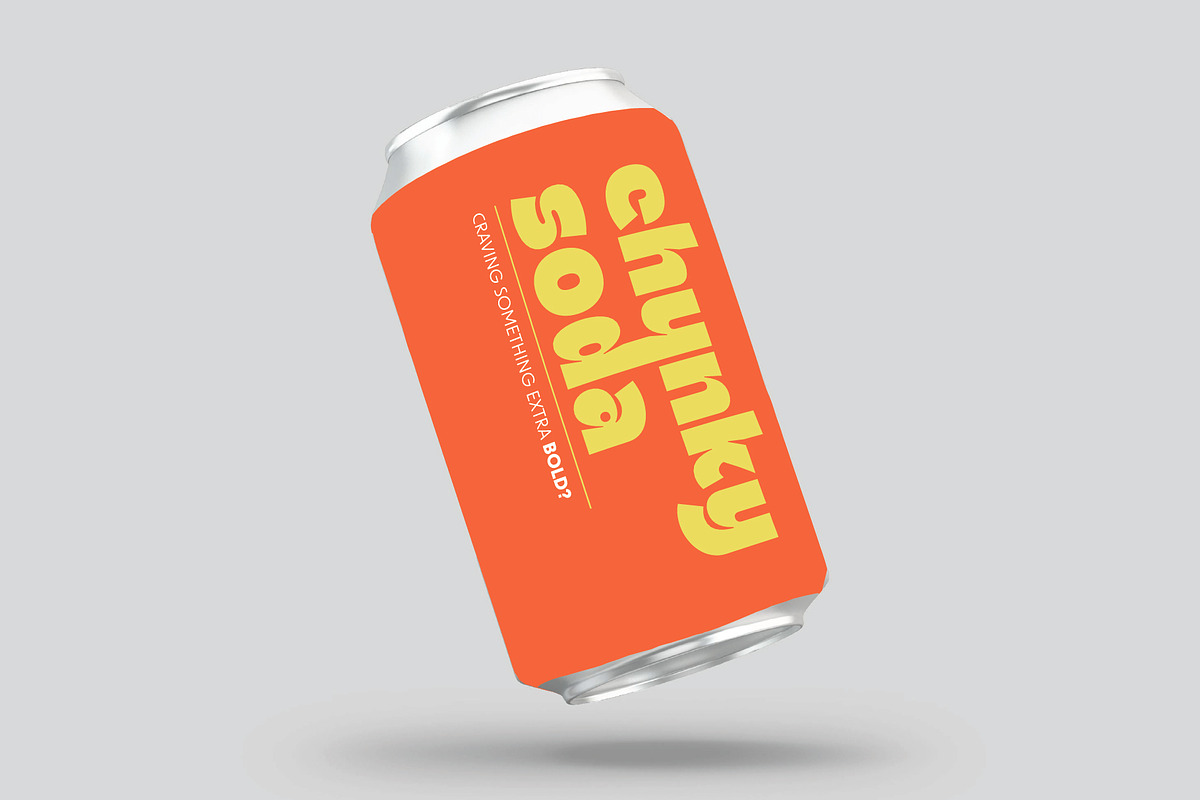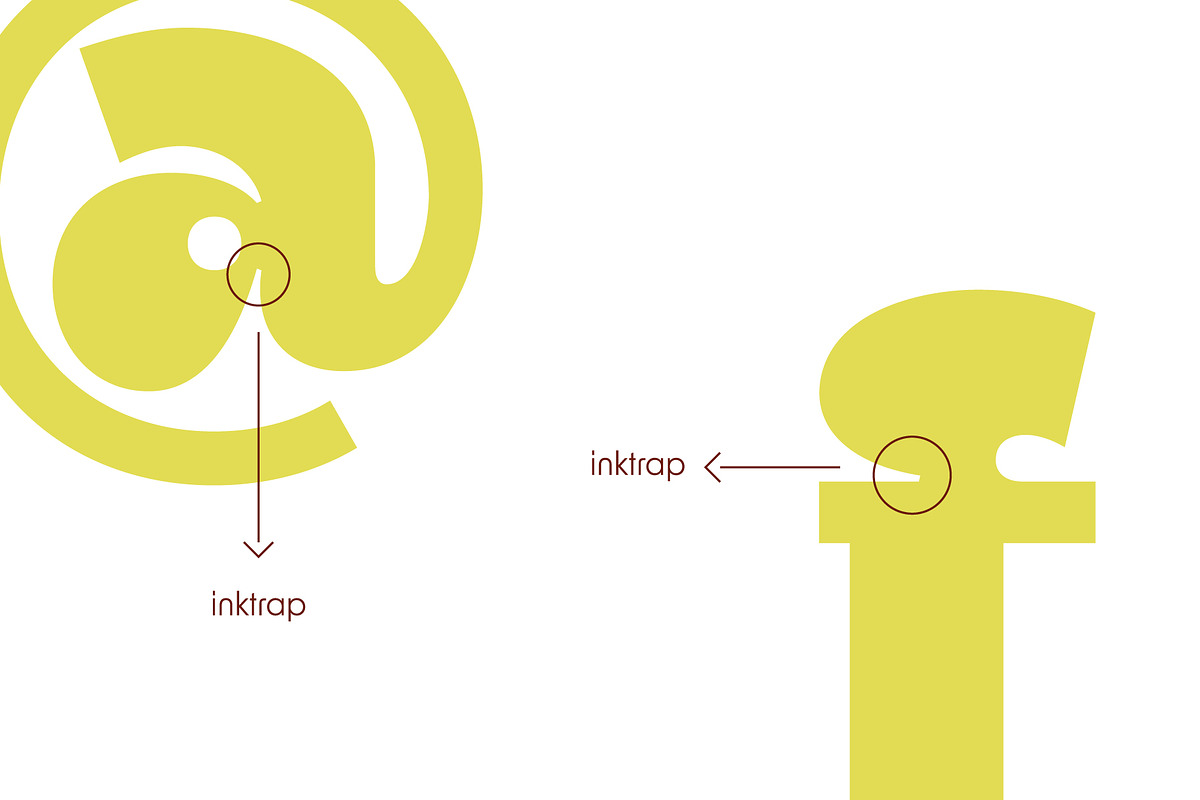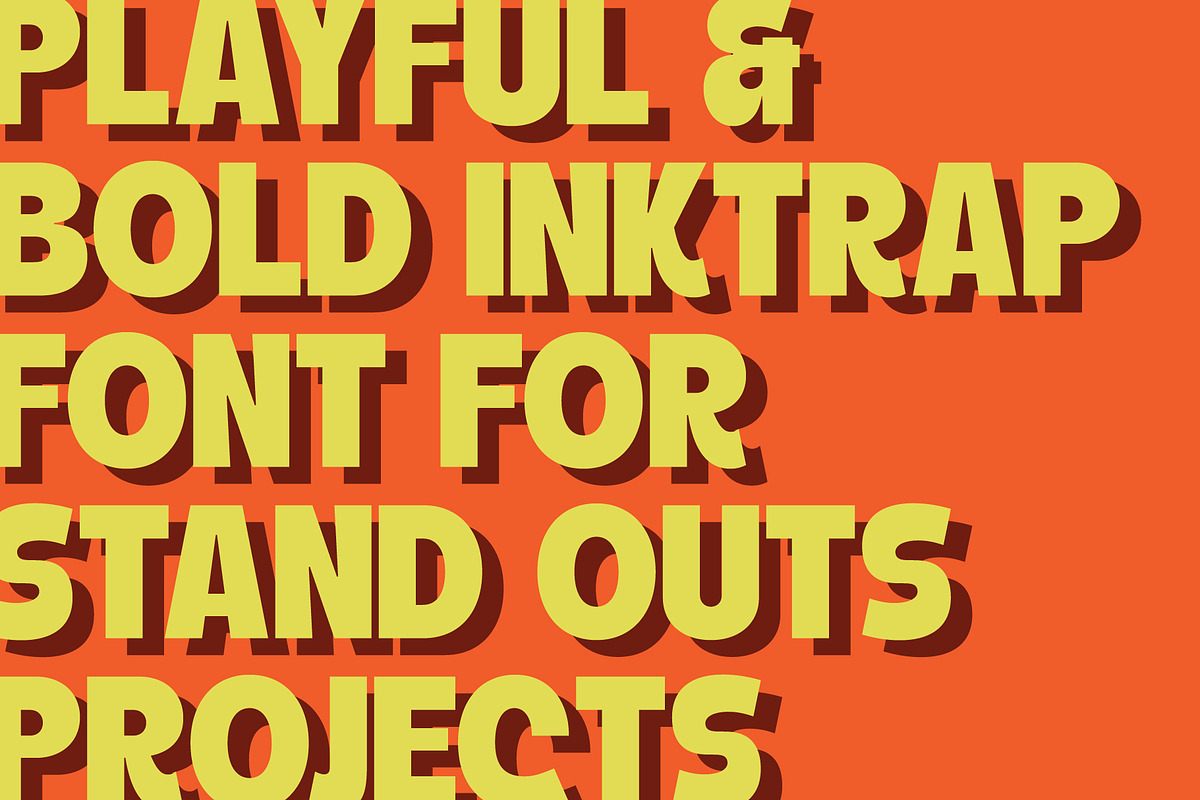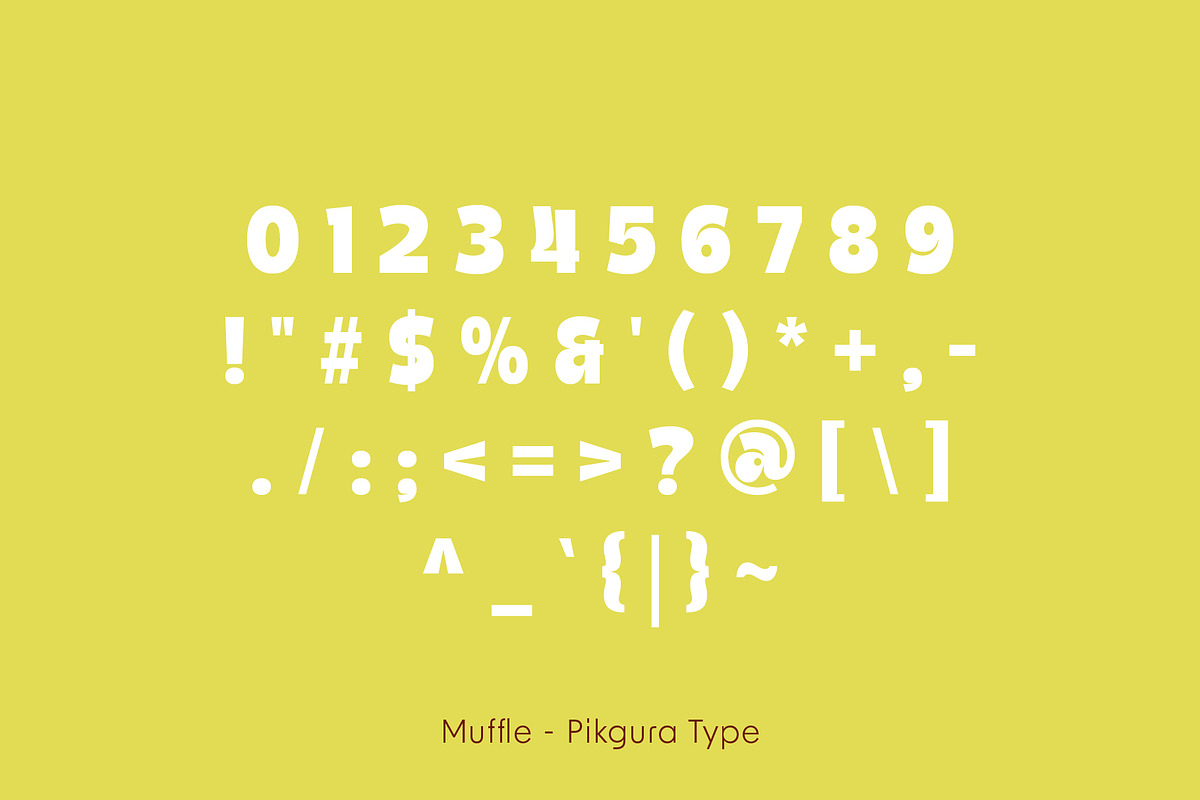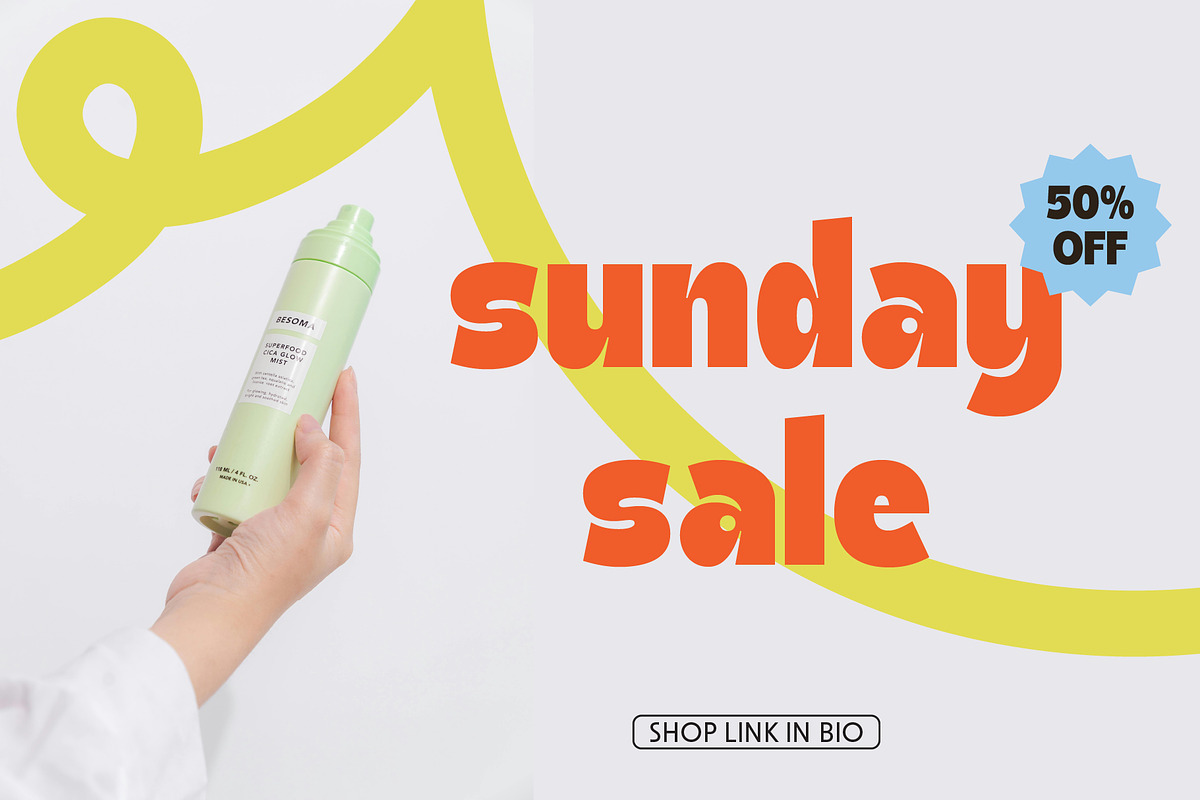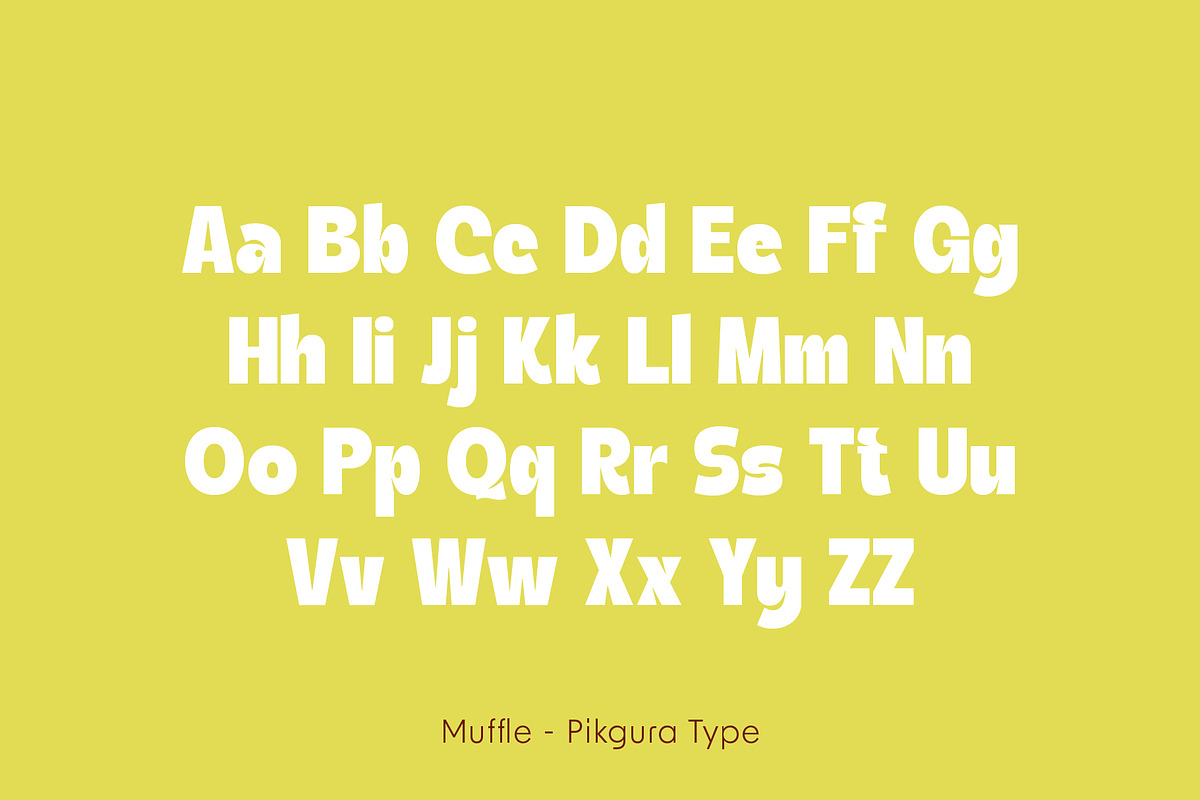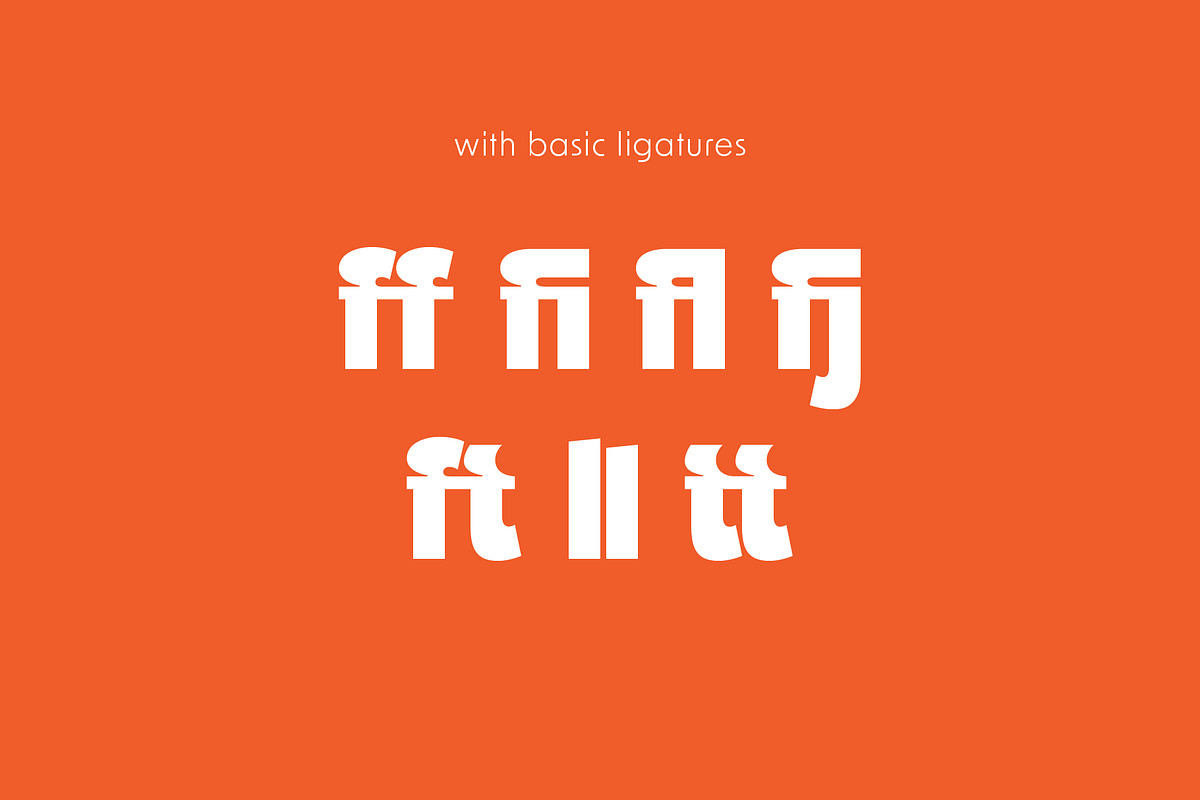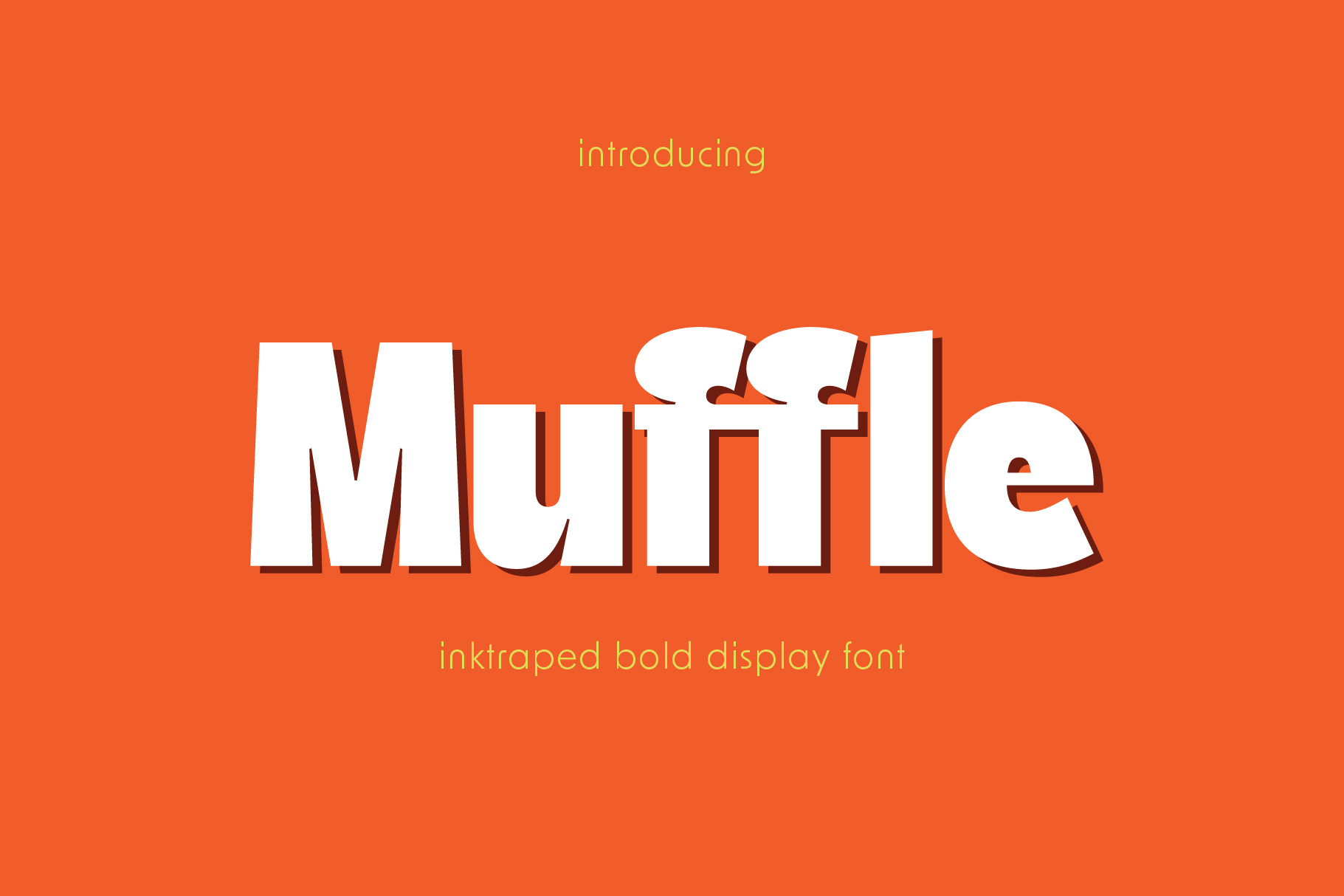
PGR Muffle - Inktrap Font
PGR Muffle is a thick sans serif font with a modern twist. It features sharp ink traps, which give each letter a distinct edge. As a result, the font looks bold, clean, and confident.
It works especially well for designs that need to stand out. For example, you can use it in posters, branding, packaging, or headlines. Wherever you need strong visual impact, PGR Muffle delivers.
In addition, the font includes uppercase and lowercase letters, numbers, and basic symbols. This makes it a flexible choice for many design projects.
Whether you’re working on digital or print, PGR Muffle adds power and style to your design. Try it today and make your message impossible to ignore.